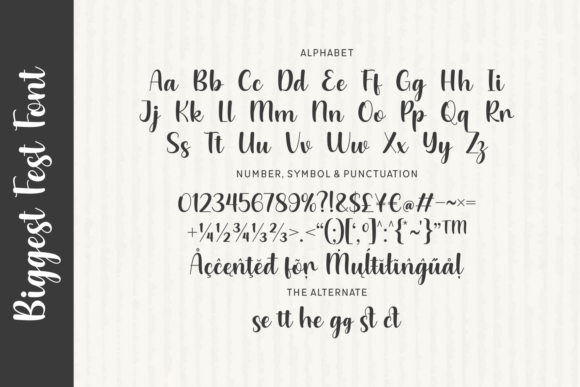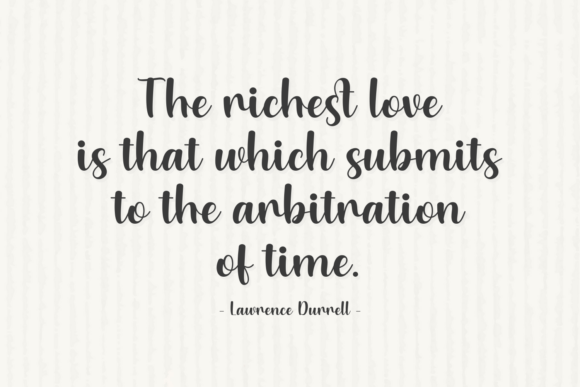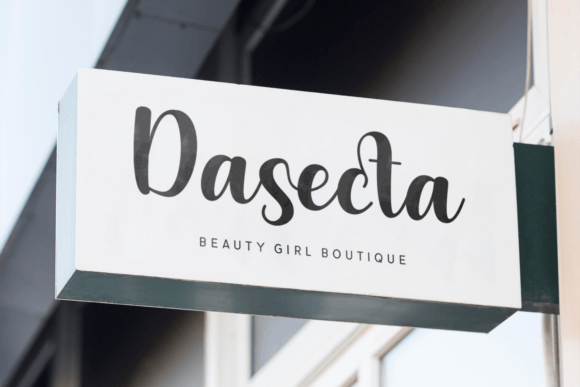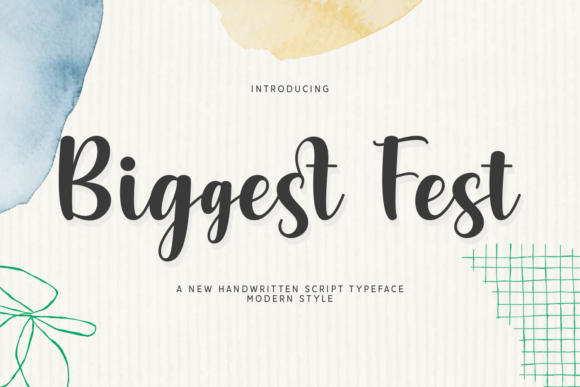
The Perfect Font for the Party
Have you ever been brainstorming ideas for a party invitation or a festive design, only to find yourself stuck in a sea of boring fonts? You know, the ones that scream “boring” instead of “bring on the party”? We’ve all been there. But what if you could add a dash of excitement to your designs with just one font? Enter the Biggest Fest Font, a lively and fun script font that’s guaranteed to bring the party to your projects.
This bold and curvy font is perfect for capturing the spirit of celebrations, and its playful style adds a touch of joy to any design. Whether you’re creating an invitation for a birthday party, a wedding, or a corporate event, the Biggest Fest Font is sure to bring a smile to your clients’ faces. As a designer, you’ll appreciate the value of having a versatile font that can elevate any project, making it a must-have in your design arsenal.
Biggest Fest Font Key Features
- Font Family: Biggest Fest Font is a unique display font designed specifically for event promotions, advertising, and entertainment purposes.
- Unique Characteristics: Features bold, eye-catching letterforms, intricate details, and a dynamic feel that grabs attention and creates a festive atmosphere.
Designer Review: Biggest Fest Font
Overall, I’d say Biggest Fest Font is a fun, playful font that’s perfect for those looking to add some whimsy to their designs. ✨
- Unique, hand-drawn style that’s sure to stand out
- Wide range of language support, making it a great option for international projects
- Highly customizable, allowing designers to tweak the font to fit their specific needs
One of the things I love about Biggest Fest Font is its versatility. It works well in a variety of contexts, from social media graphics to print materials. ✨
- Can be overwhelming in large quantities, so use sparingly
- May not be the best choice for formal or professional projects
- Some characters may not be as refined or detailed as others
Overall, I’d give Biggest Fest Font 4 out of 5 stars. It’s a great choice for designers looking to add some personality to their projects, but it may not be the best fit for every situation. ⚠️
Biggest Fest Font is ideal for use in festival and event marketing materials, such as posters, flyers, and social media graphics. It’s also great for creating attention-grabbing headlines and titles in presentations, documents, and websites.
What is the recommended font size for Biggest Fest Font?
The recommended font size for Biggest Fest Font is between 12pt and 24pt, depending on the context and design requirements. For body text, 14pt is a good starting point, while headings can be set to 18pt or larger for maximum impact.